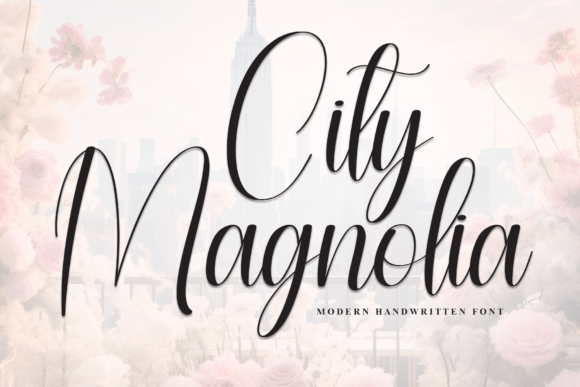
City Magnolia Font: Elevate Your Designs with Artistic Flair and Contemporary Elegance
Are you looking for a font that can add a touch of sophistication and creativity to your designs? Look no further than City Magnolia Font. This stylish script font is designed to exude artistic flair and contemporary elegance, making it perfect for a wide range of design applications. In this article, we’ll take a closer look at City Magnolia Font, its features, and how you can use it to elevate your designs.
Key Features of City Magnolia Font
- Fluid Brush Strokes: City Magnolia Font features fluid brush strokes that give it a natural, hand-painted look.
- Dynamic Curves: The font’s dynamic curves add a touch of elegance and sophistication to any design.
- Expressive Letterforms: Each letterform in City Magnolia Font is designed to be expressive and unique, adding a touch of personality to your designs.
- Modern Twist: While City Magnolia Font is inspired by traditional calligraphy, it has a modern twist that makes it perfect for contemporary designs.
Ideal Design Applications for City Magnolia Font
City Magnolia Font is a versatile font that can be used in a wide range of design applications, including:
- Logos: Add a touch of elegance and sophistication to your logo with City Magnolia Font.
- Invitations: Make your invitations stand out with the font’s unique and expressive letterforms.
- Packaging: Use City Magnolia Font to add a creative and sophisticated touch to your product packaging.
- Social Media Graphics: Elevate your social media graphics with the font’s modern and artistic flair.
Benefits of Using City Magnolia Font
So why choose City Magnolia Font for your designs? Here are just a few benefits of using this stylish script font:
- Visual Impact: City Magnolia Font delivers a strong visual impact, making it perfect for designs that need to stand out.
- Versatility: The font’s versatility makes it suitable for a wide range of design applications.
- Creative Touch: Add a creative and sophisticated touch to your designs with City Magnolia Font’s unique and expressive letterforms.
- Elegance: The font’s elegant and refined design makes it perfect for designs that require a touch of sophistication.
Tips for Using City Magnolia Font
Here are a few tips for getting the most out of City Magnolia Font:
- Use it sparingly: City Magnolia Font is a bold and expressive font, so use it sparingly to avoid overwhelming your design.
- Pair it with a neutral font: Pair City Magnolia Font with a neutral font to create visual interest and add depth to your design.
- Experiment with colors: City Magnolia Font looks great in a variety of colors, so don’t be afraid to experiment and find the perfect hue for your design.
- Pay attention to spacing: Make sure to pay attention to spacing when using City Magnolia Font, as the font’s fluid brush strokes can make it difficult to read if it’s too cramped.
Draw Inspiration from City Magnolia Font
City Magnolia Font is inspired by traditional calligraphy, but with a modern twist. Here are a few ways you can draw inspiration from the font:
- Hand-painted lettering: Look to hand-painted lettering for inspiration, and try to capture the same fluidity and expressiveness in your designs.
- Contemporary calligraphy: Take a look at contemporary calligraphy for inspiration, and see how you can incorporate modern elements into your designs.
- Street art: Street art is a great source of inspiration for City Magnolia Font, with its bold and expressive letterforms.
City Magnolia Font is a stylish script font that exudes artistic flair and contemporary elegance. With its fluid brush strokes, dynamic curves, and expressive letterforms, it’s perfect for a wide range of design applications. Whether you’re looking to add a touch of sophistication to your logo, create eye-catching social media graphics, or make your invitations stand out, City Magnolia Font is the perfect choice. So why wait? Download City Magnolia Font today and elevate your designs with its creative and sophisticated touch.